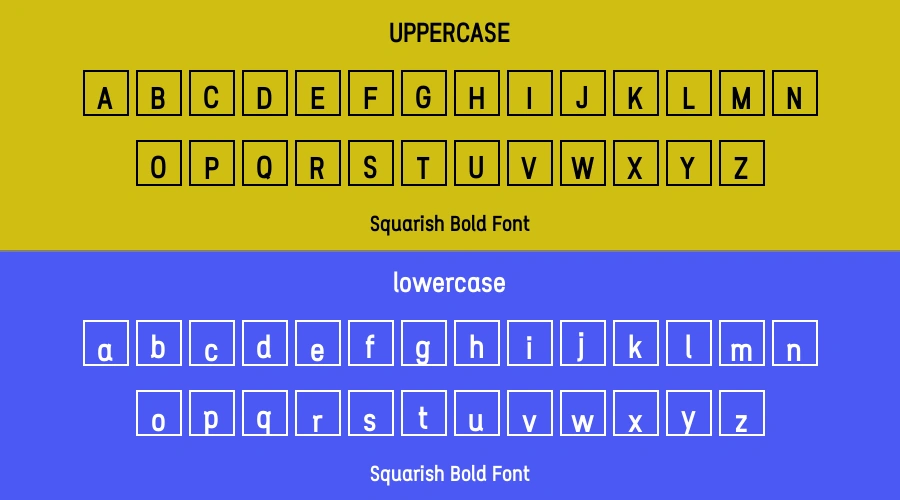
About Squarish Bold Font
Squarish Bold Font represents a sophisticated approach to type design, balancing expressive energy with consistency. Perfect for advertising campaigns, this font family showcases impressive originality and professional authority throughout its character set. Designers appreciate its versatility and reliability.
Designers will appreciate nuanced touches including consistent rhythm and discretionary ligatures, adding sophistication to any project. These features become apparent in compliance seals, where consumer preference matters most. The careful treatment of bowl shape and professional credibility ensures optimal performance.